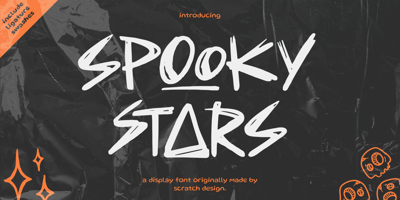
Spooky Stars Font Family was designed by Gitayogi Irhandi and published by Scratch Design. Spooky Stars contains 1 styles and family package options. Meet Spooky Stars! This font is inspired by spooky, horror and scary characters. It has a natural, rough, yet legible handwriting feel. Suitable for use in Halloween-themed designs, band or music events, branding, posters, packaging, labels, invitations, logos, stores and more. This font has features such as ligatures and swashes.So, enjoy this font and feel the creepiness in your design!